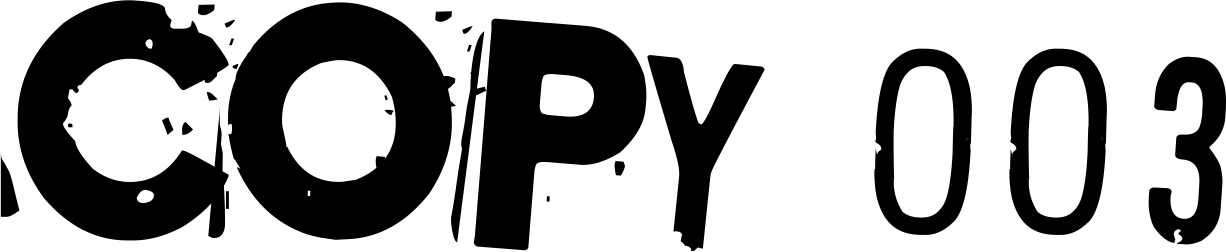
Copy 003 Font
Copy 003 is a bold, distorted, worn font that falls under the destroy font category. It serves you with two sets of uppercase letters that are slightly different, along with numerals, and general punctuation. You can use…
Copy 003 is a bold, distorted, worn font that falls under the destroy font category. It serves you with two sets of uppercase letters that are slightly different, along with numerals, and general punctuation. You can use it in so many different areas. Some of them would be movie posters, book covers, flyers, ad billboards, and so on.